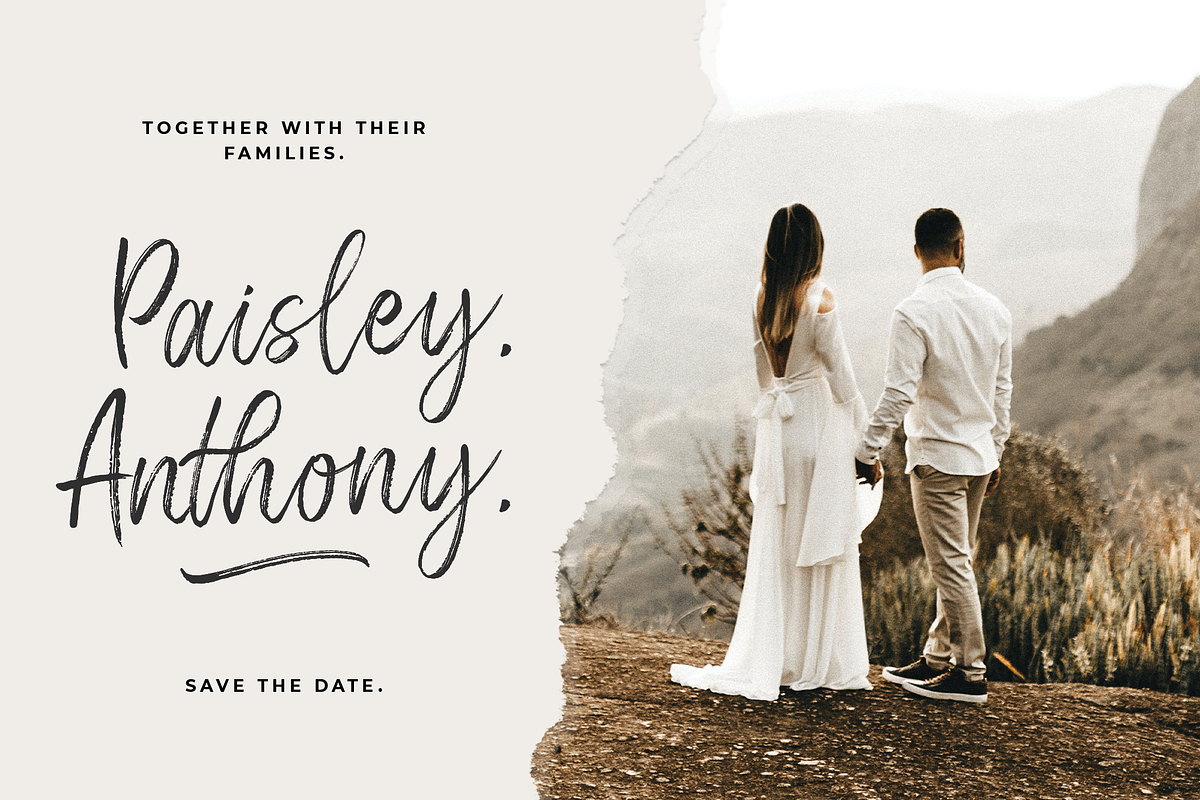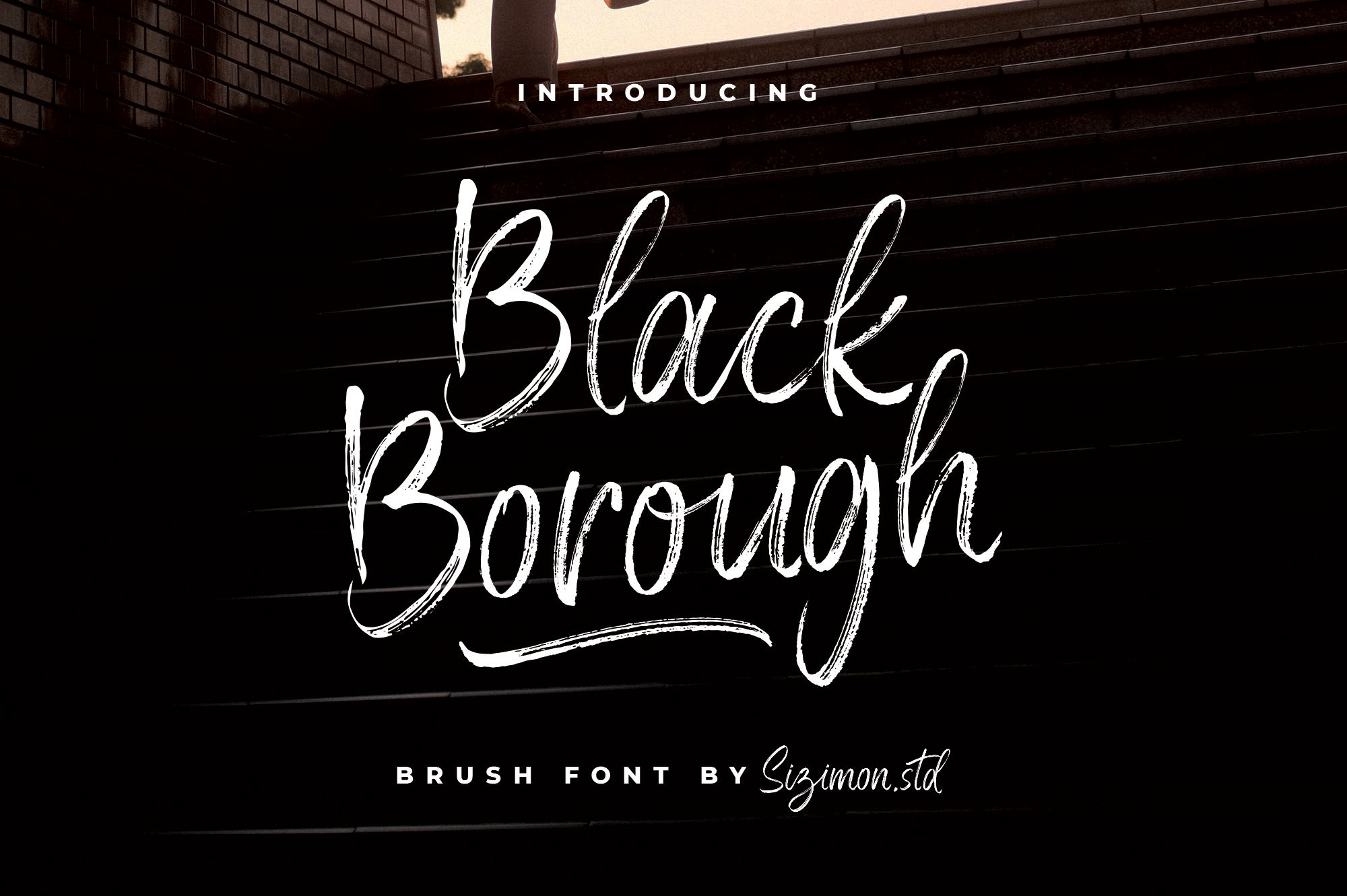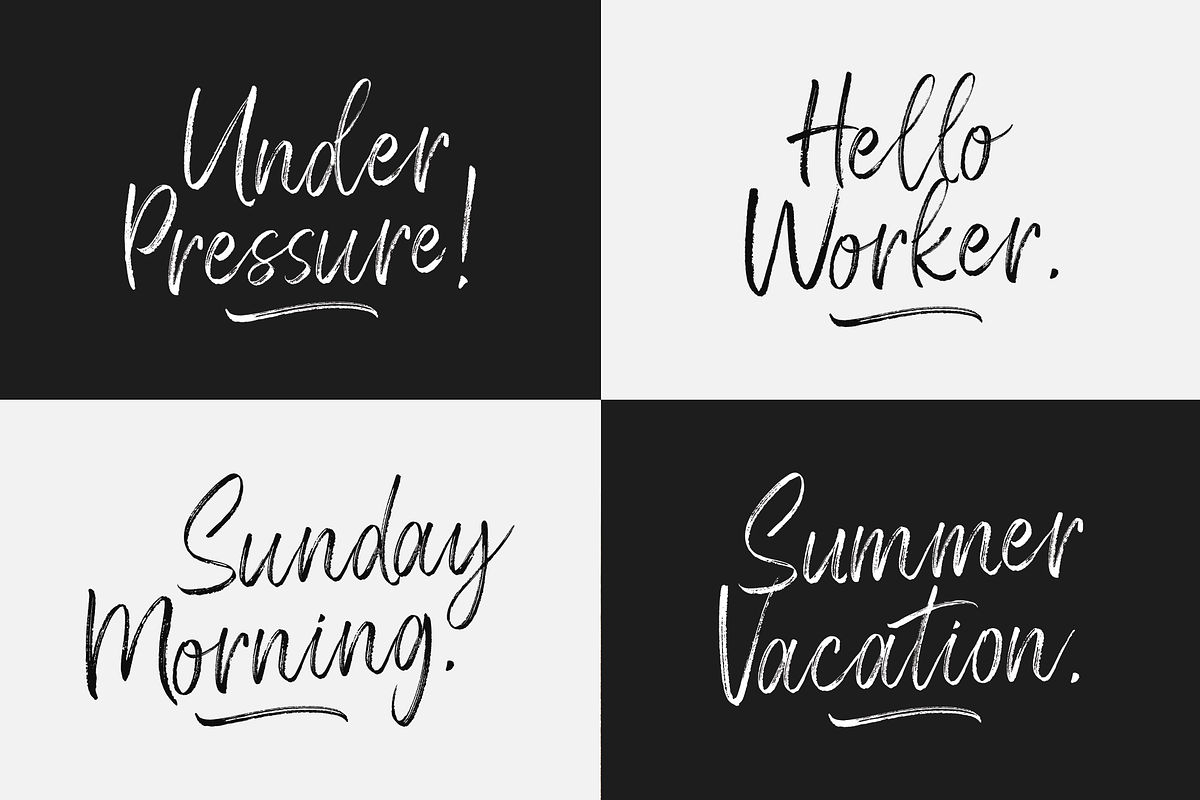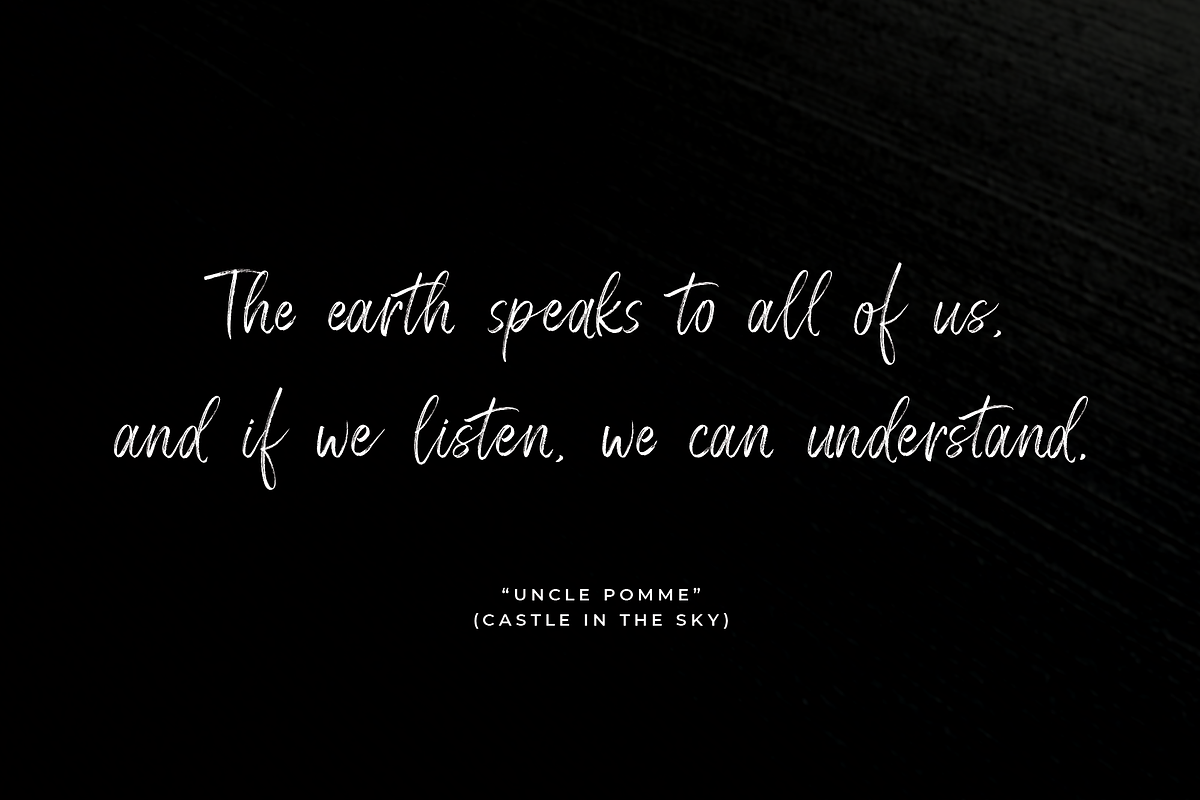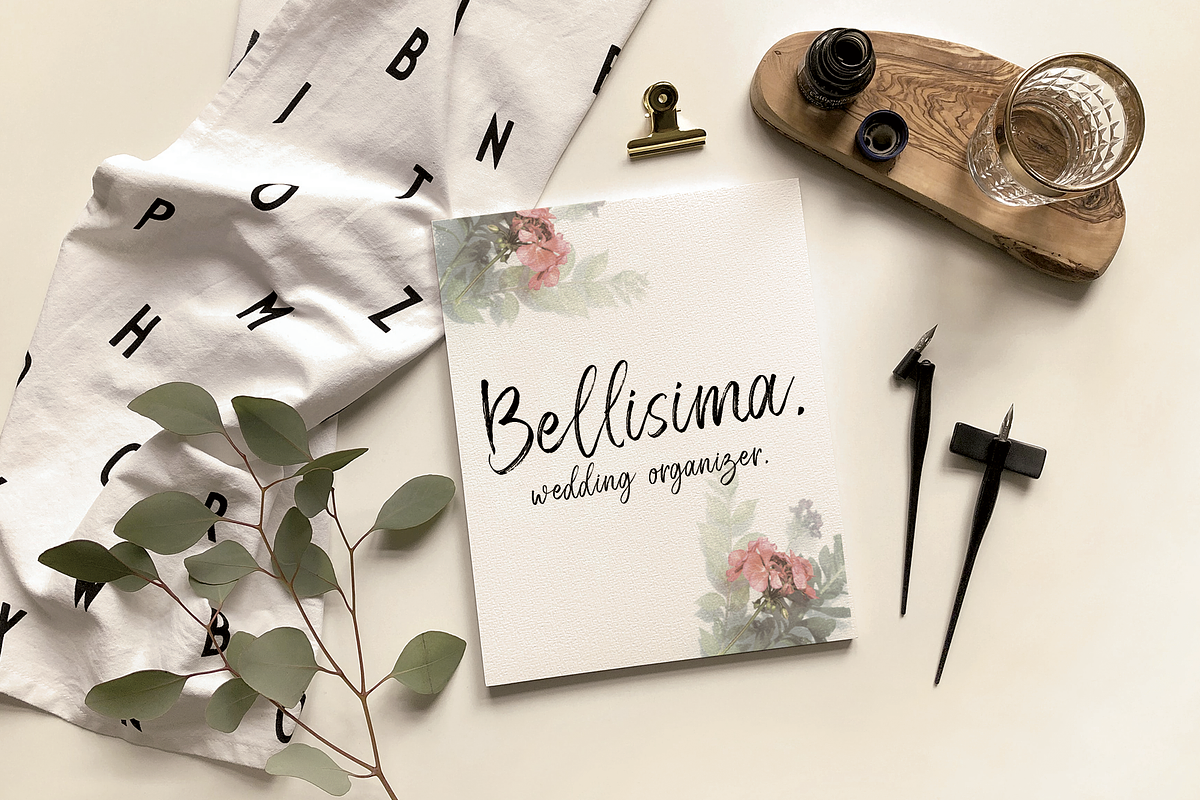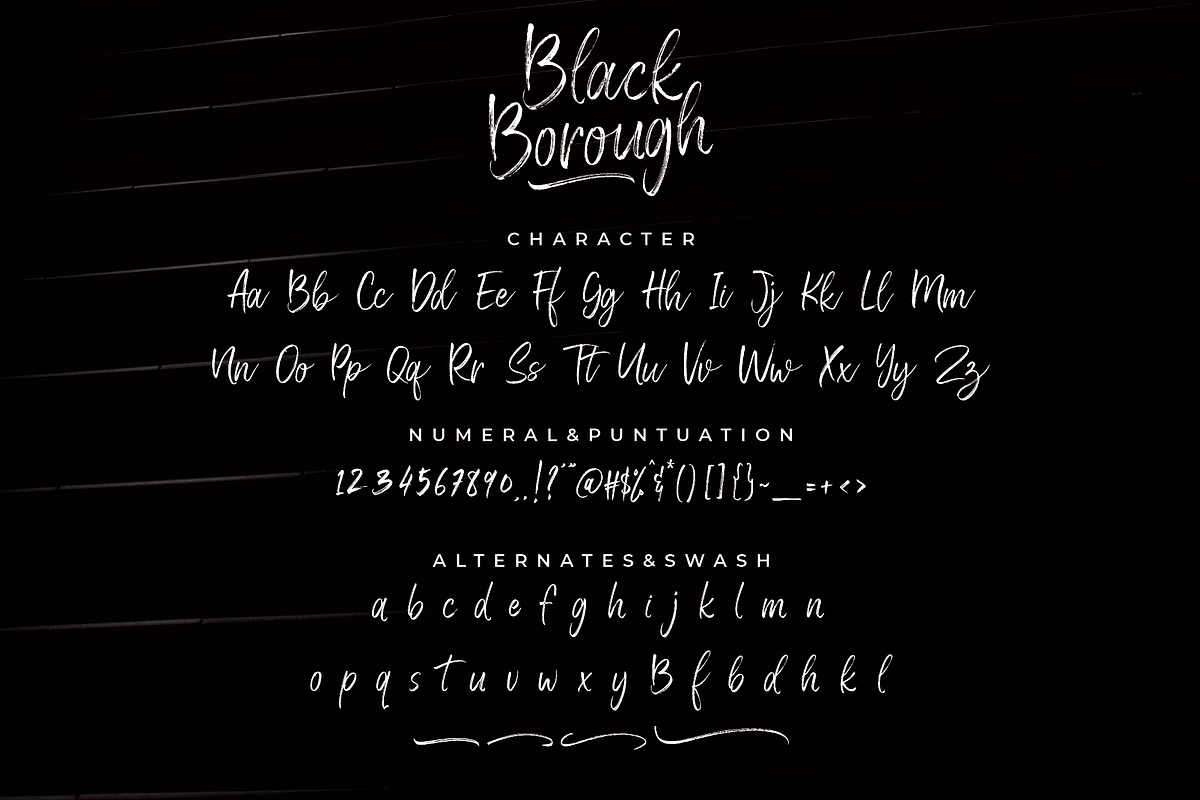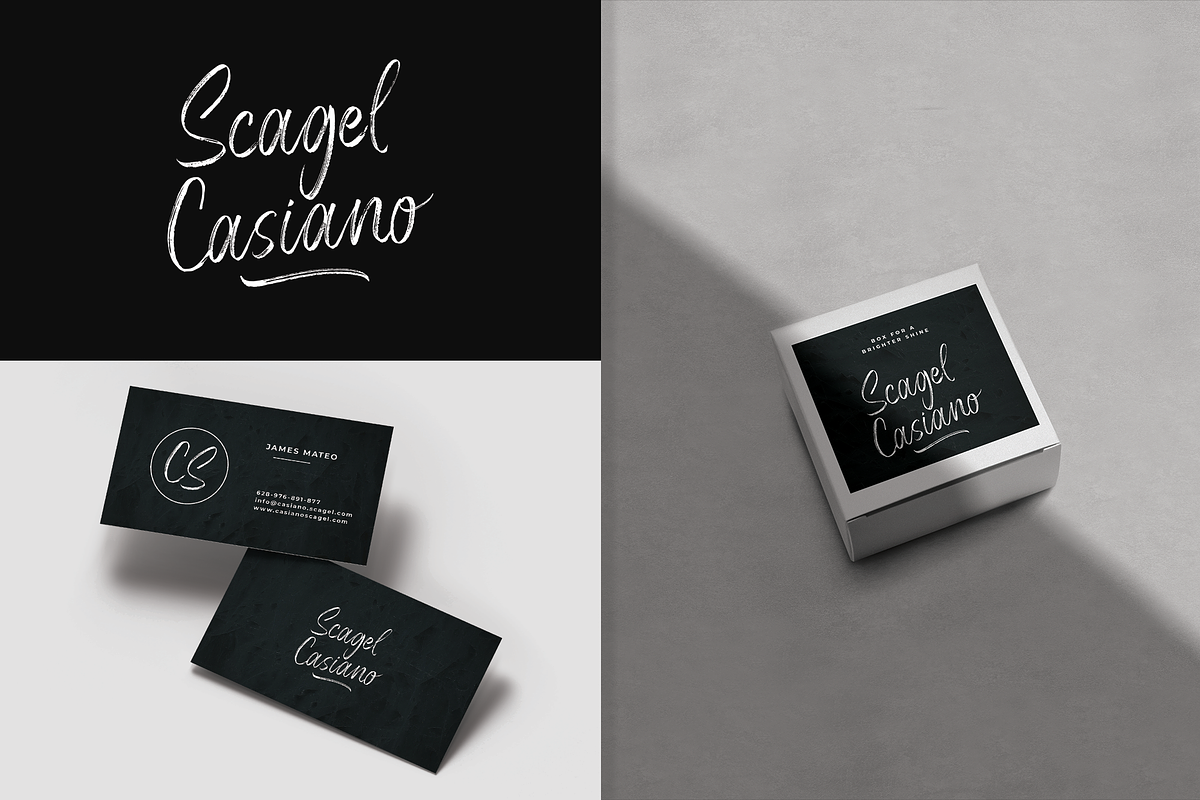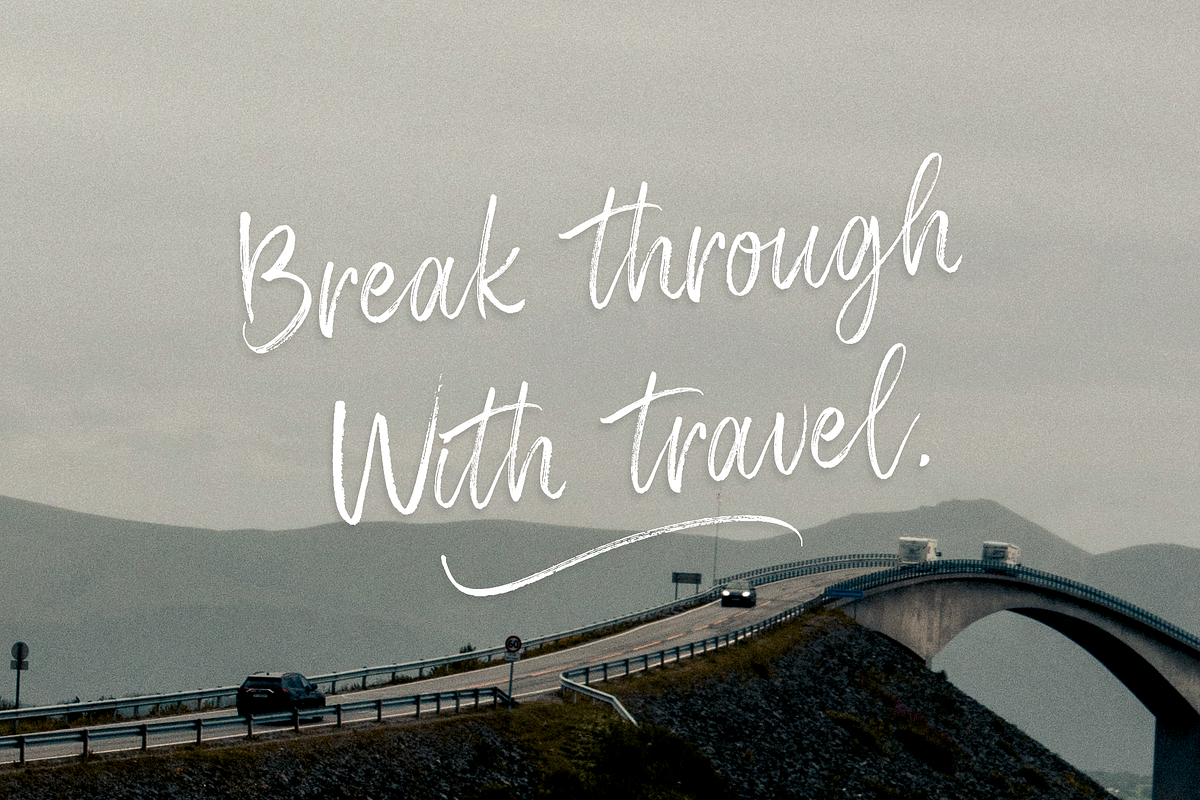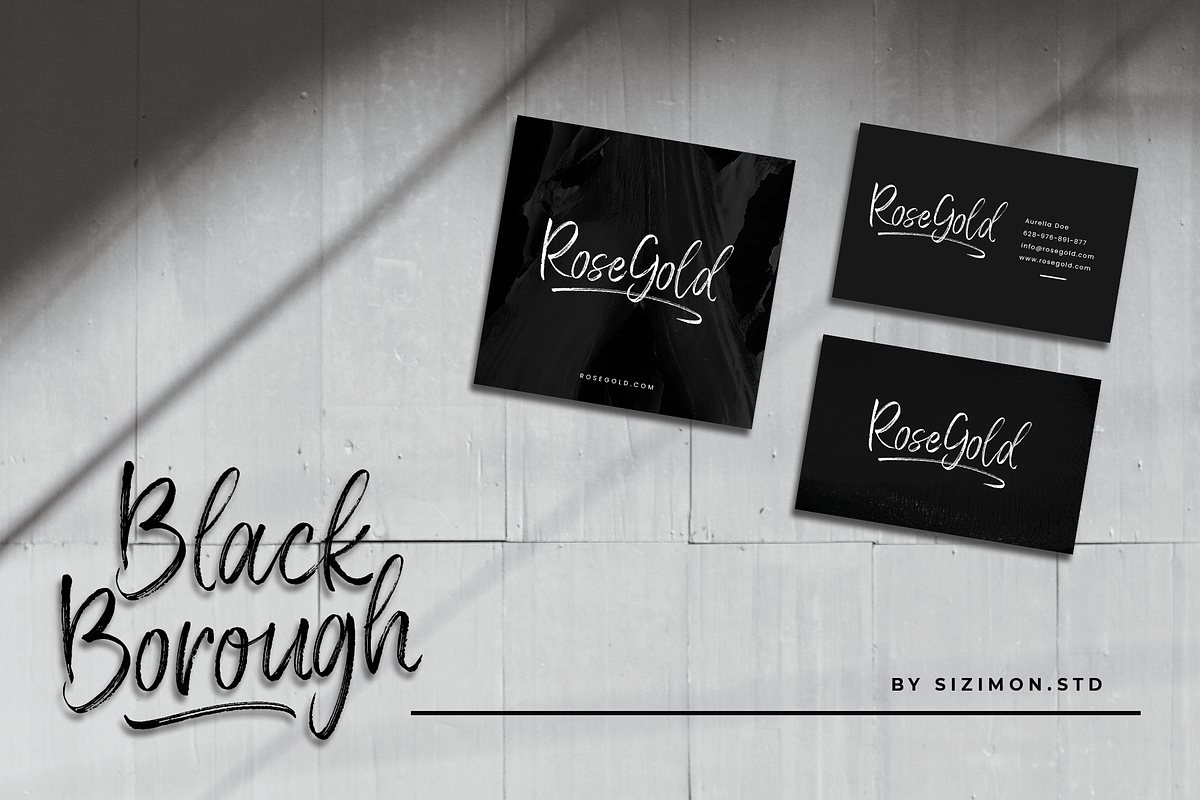
Black Borough Brush Font
Black Borough is brush font, hand-painted with extra attention to quick-strokes and dry textures. Very cool for logos, name tag, handwritten quotes, product packaging, merchandise, social media & greeting cards. And very easy to make design t-shirts and other products. Very save time in making the design of a product. It contains a full set of lower & uppercase letters, a large range of punctuation, numerals, and multilingual support.